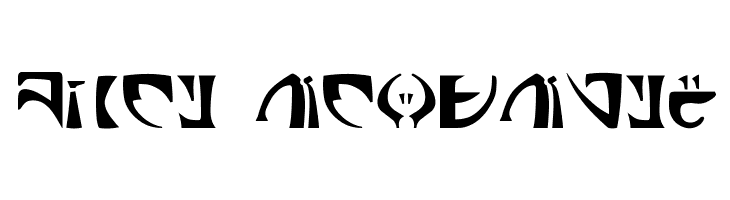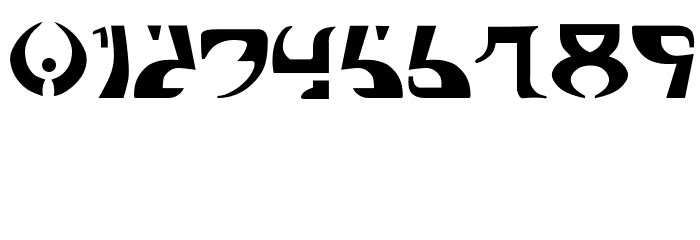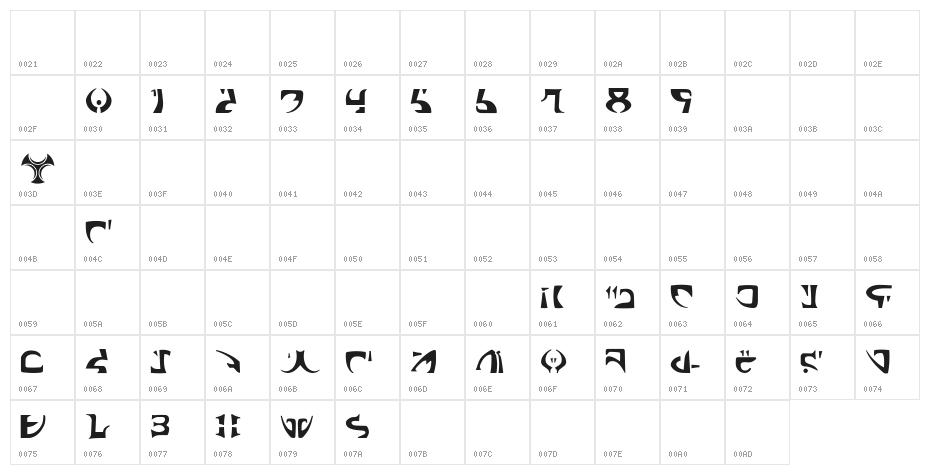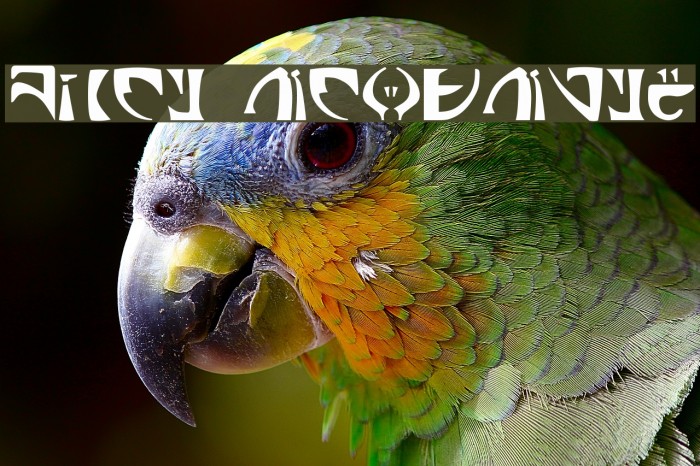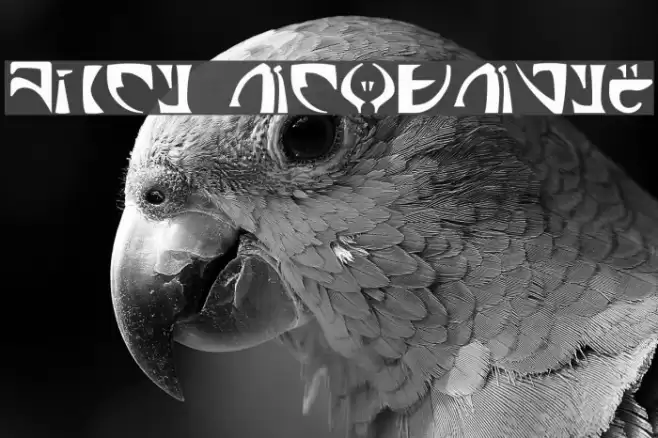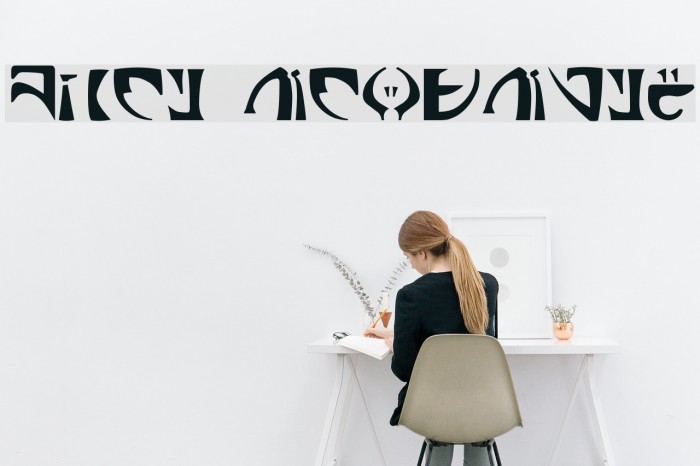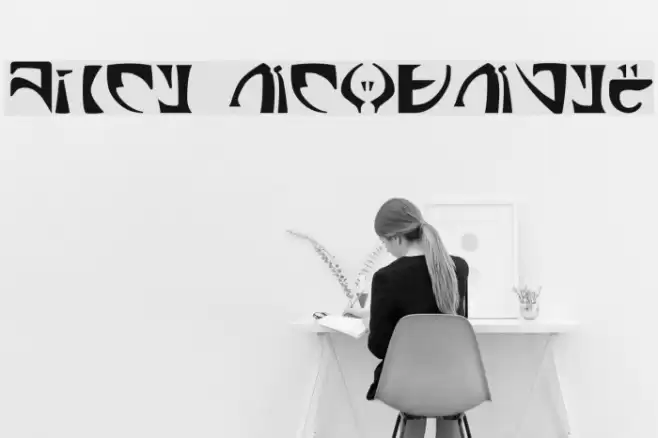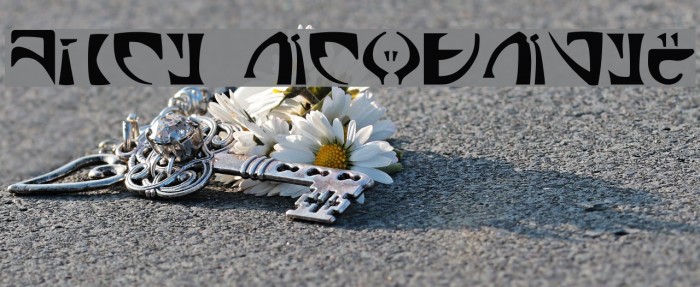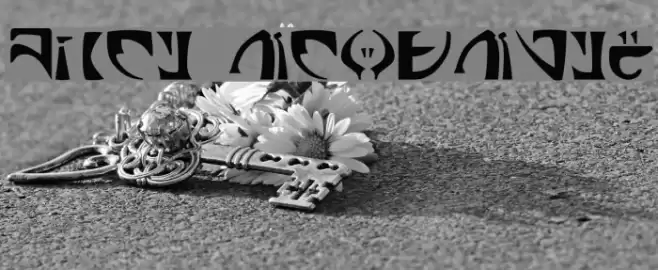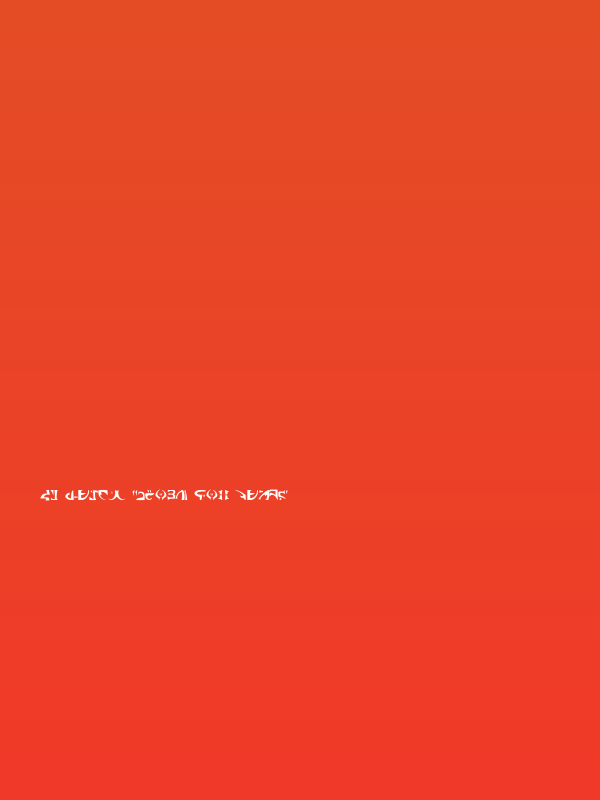
Space Encounter Font
Space Encounter Description
This font features a futuristic and alien-like design, characterized by its unique and abstract letterforms. Each character is crafted with sharp angles and curves, creating a sense of mystery and otherworldliness. The font's bold strokes and geometric shapes give it a strong visual impact, making it ideal for projects that require a sci-fi or space-themed aesthetic. Its distinct style is both captivating and unconventional, offering a fresh take on typography that stands out in any design context.
| Proposed Projects | Ideal for sci-fi movie posters, video game titles, space-themed event flyers, and futuristic branding. |